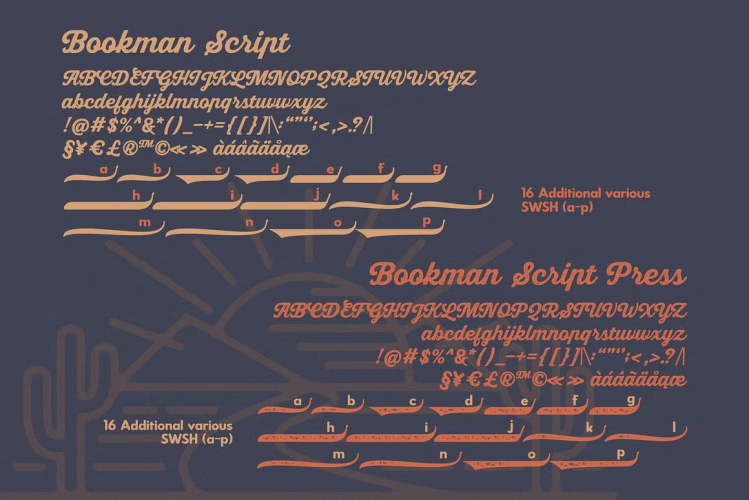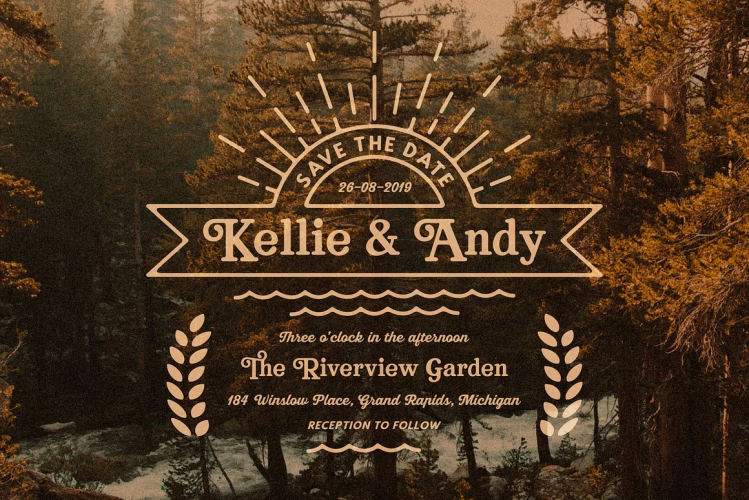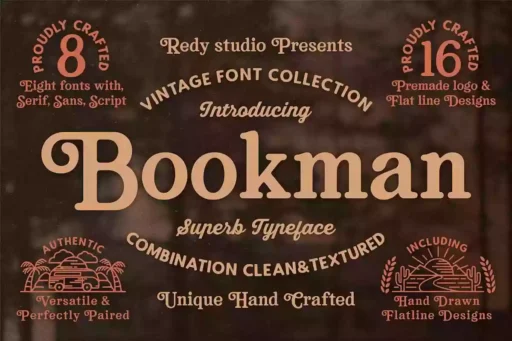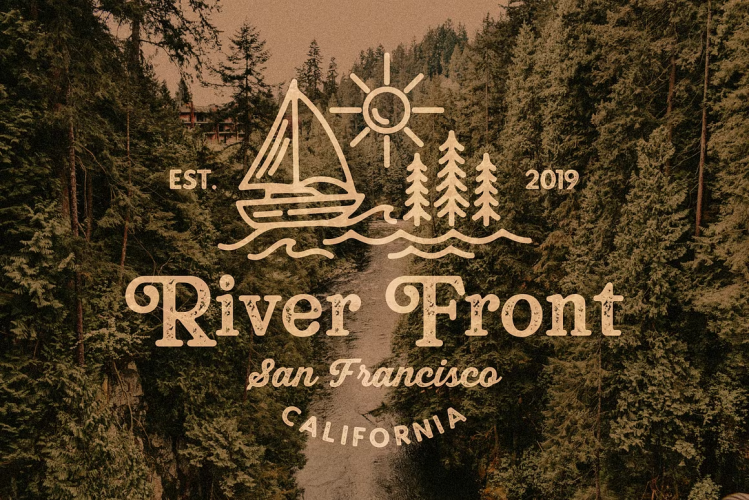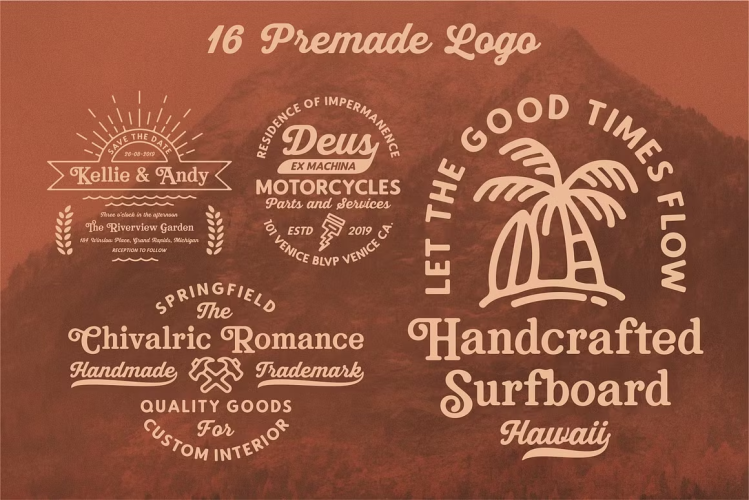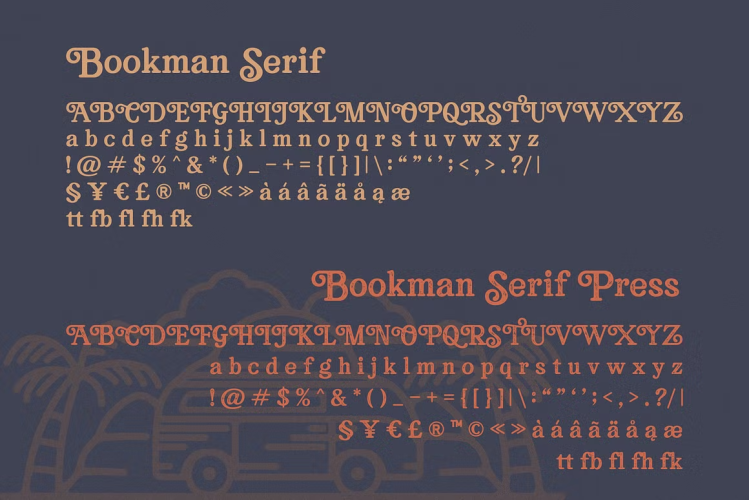
Bookman Font
Introducing Bookman Font Collection, an all-inclusive family of fonts intended to enhance your typographic works and give them the touch of graceful and advanced loveliness. This set contains eight distinct fonts, each of a different breed (Serif, Sans, Script) with two styles (Clean and Press), allowing you to free your imagination.
With attention to the smallest detail and the utmost care, the Bookman Font Collection is ideal for producing impressive typographic works that never fail to amaze. These fonts will do the talking, whether you are creating t-shirts, logos, posters, magazine prints, or attention-grabbing typographical designs.
But that is not the end—the Bookman Font Collection also comes with 16 editable logo templates for Adobe Illustrator (CS & CC), allowing you to modify and adjust them to your specific branding needs efficiently. Inside the pack, you will also get hand-drawn flatline designs, a tremendous artisanal detail for your most original projects.
The Bookman Font Collection is a favorite among designers looking for excellence, versatility, and elegance. Whether you are an experienced professional or a beginner, these fonts will allow you to make a captivating and inspiring typographic work of art.
Bookman Font is a Serif Fonts font that brings a professional and versatile look to your projects. Introducing Bookman Font Collection, an all-inclusive family of fonts intended to enhance your typographic works and give them the touch of graceful and advanced loveliness.